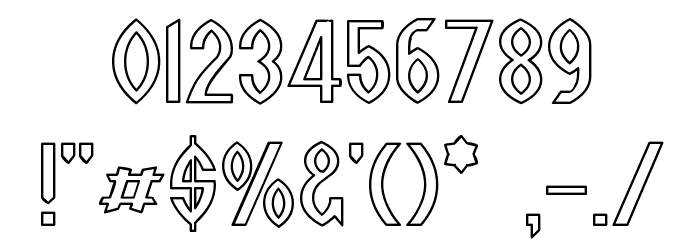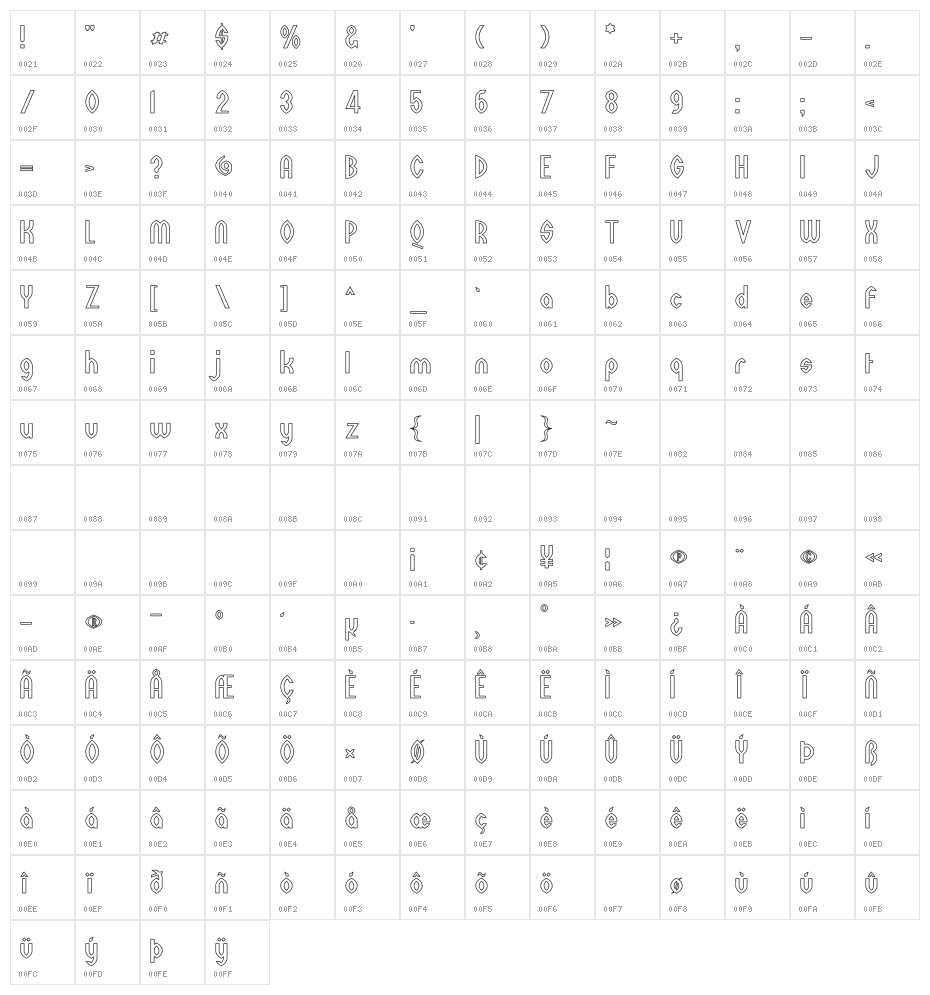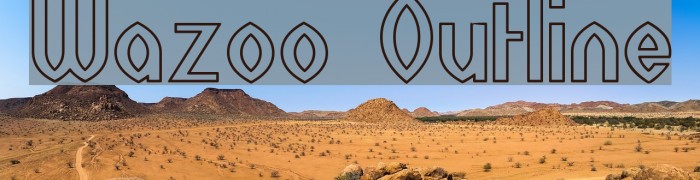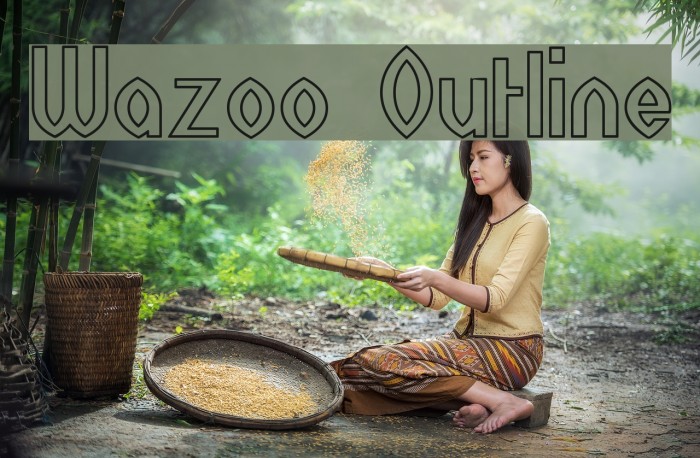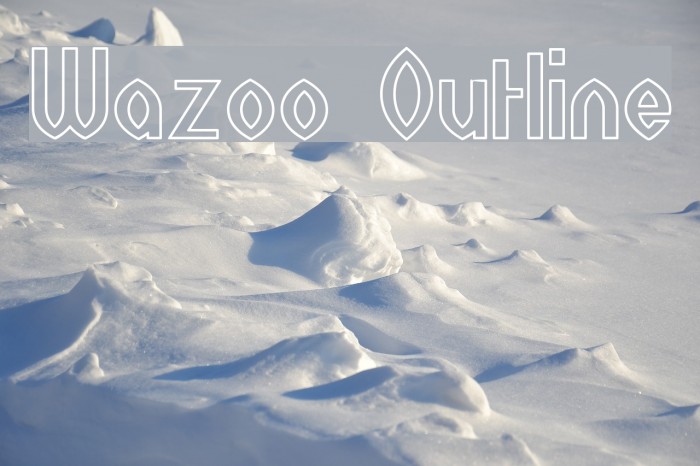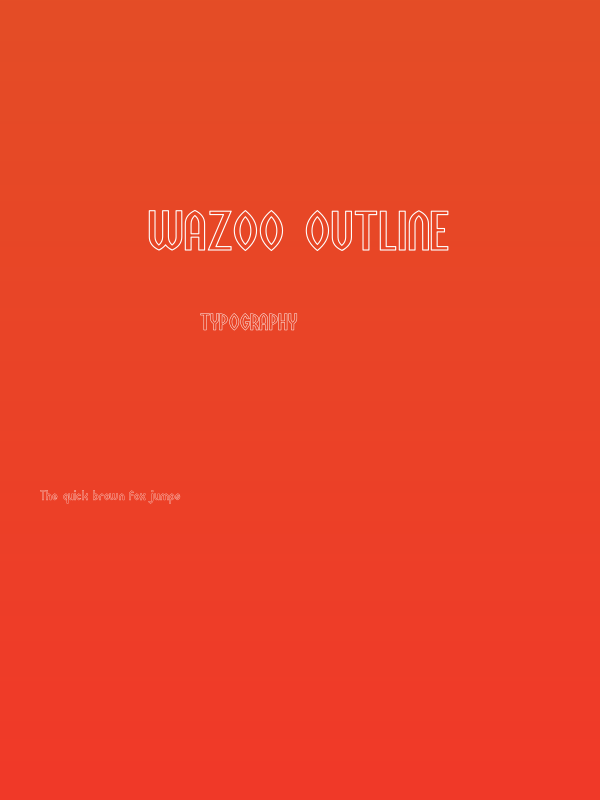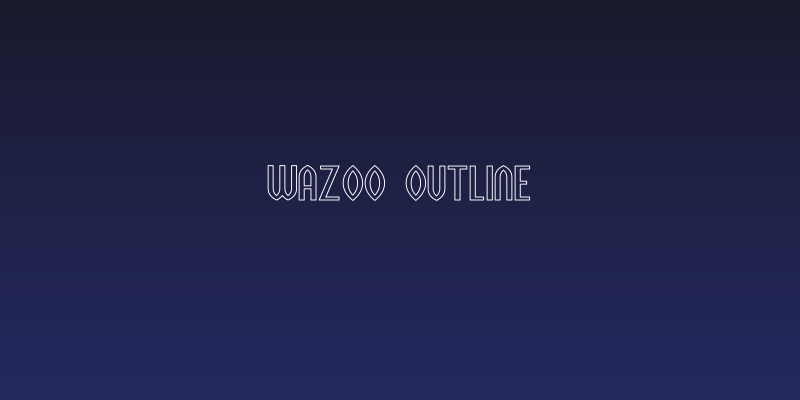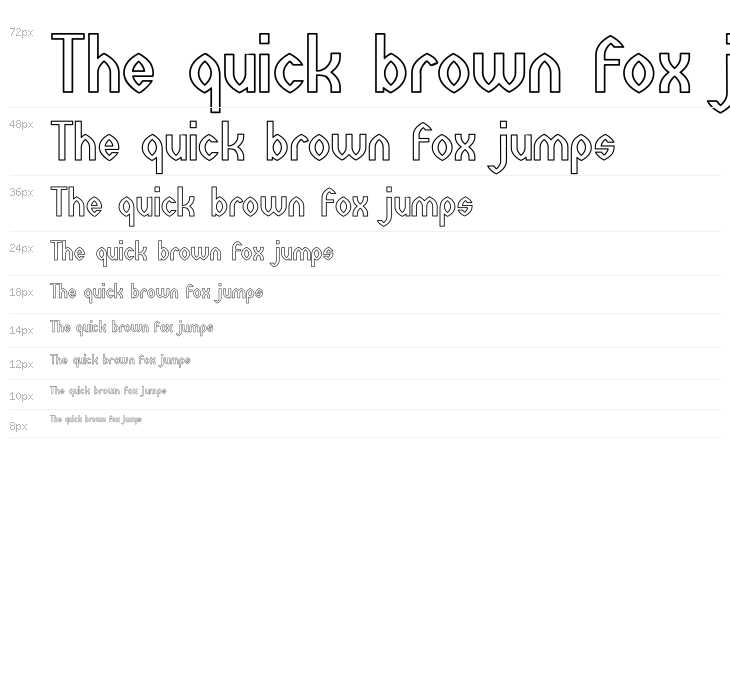
Wazoo Outline Font
Wazoo Outline Description
This font features a distinct outline style, giving each character a hollow appearance. The geometric shapes and sharp angles create a modern and edgy look. The uppercase and lowercase letters maintain a consistent design, with clean lines and a uniform stroke width. The numerals and special characters follow the same outlined style, ensuring a cohesive appearance across all glyphs. This font is particularly eye-catching and can be used to make a bold statement in various design projects.
| Proposed Projects | Ideal for posters, logos, headlines, and any design that requires a striking, modern look. |